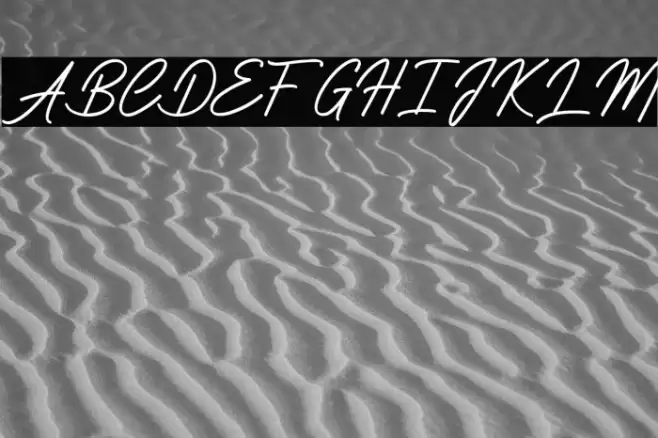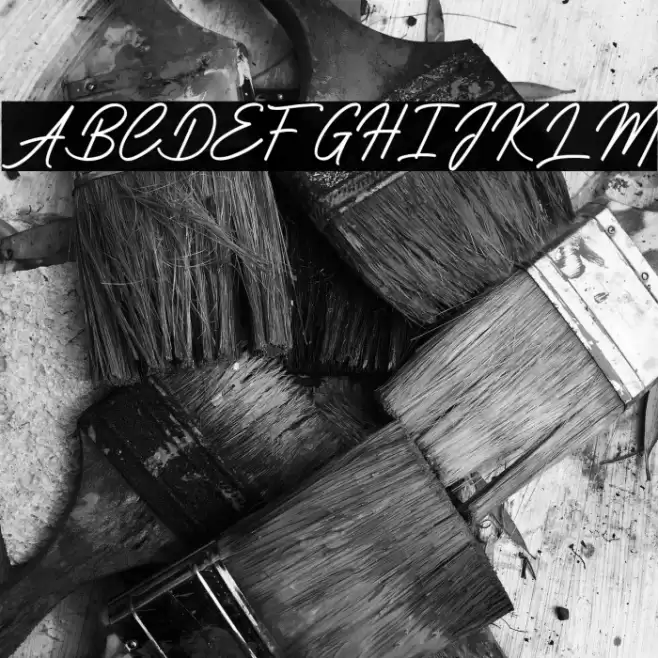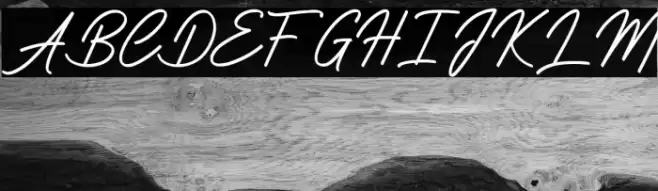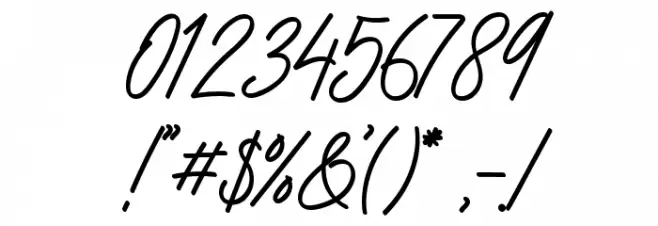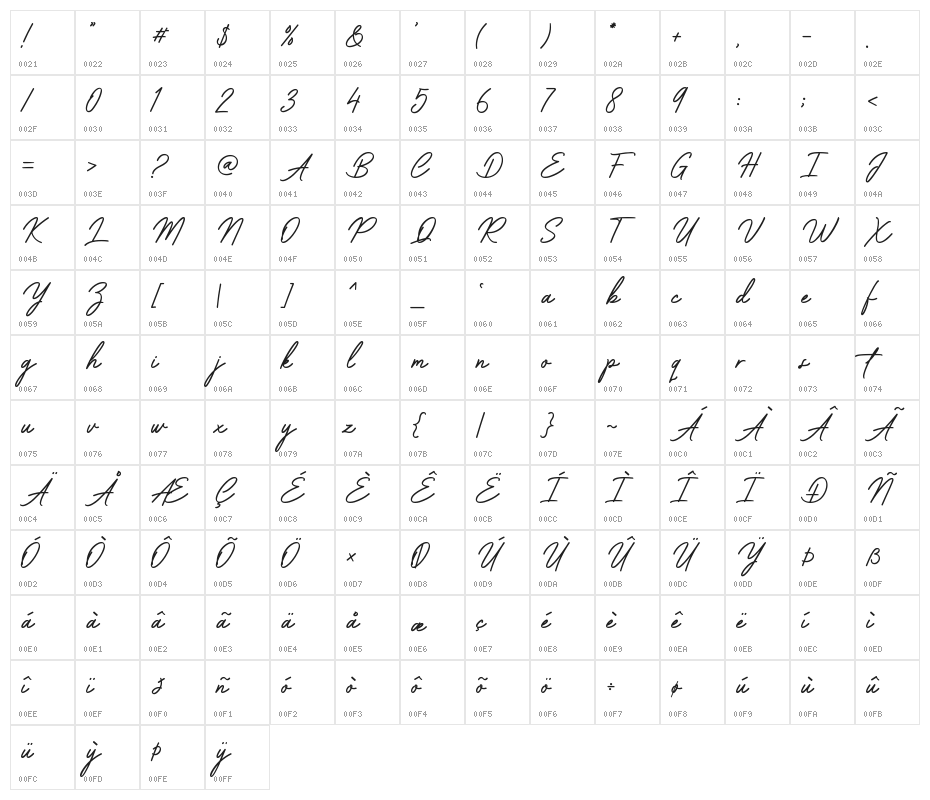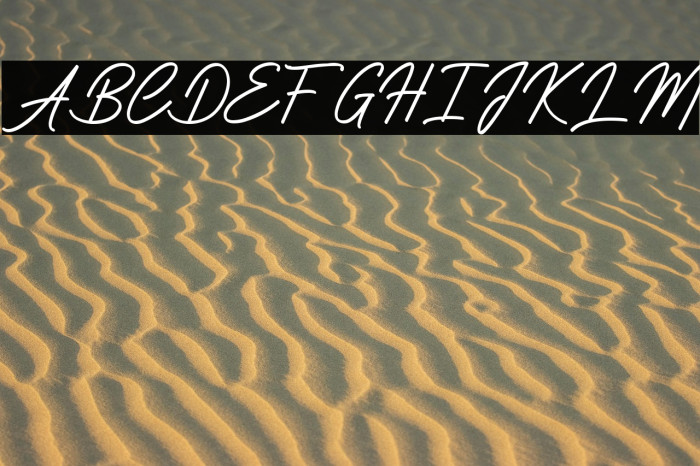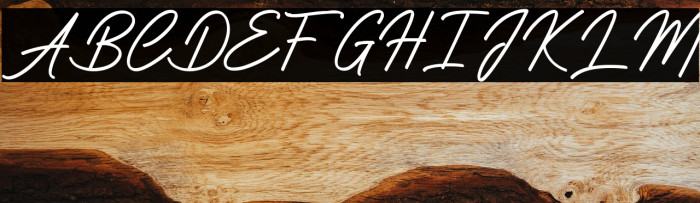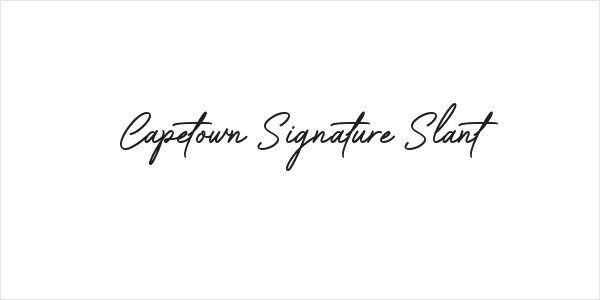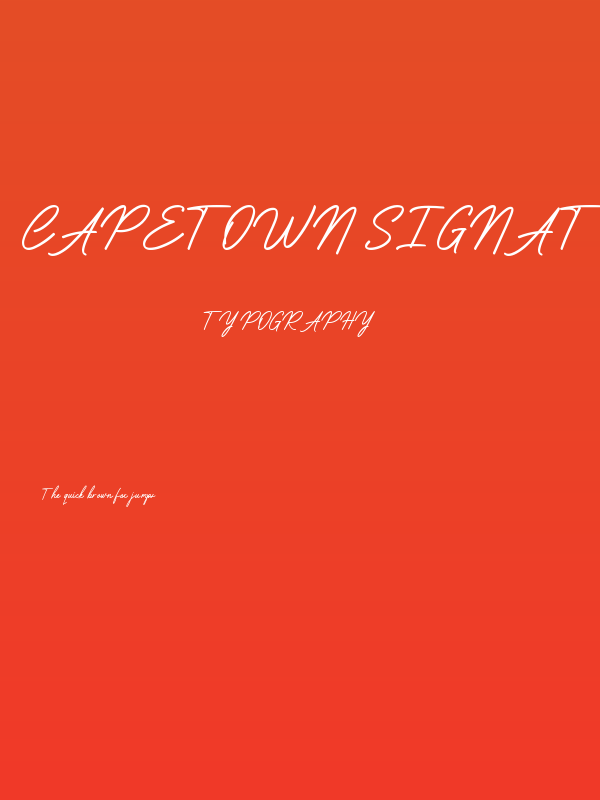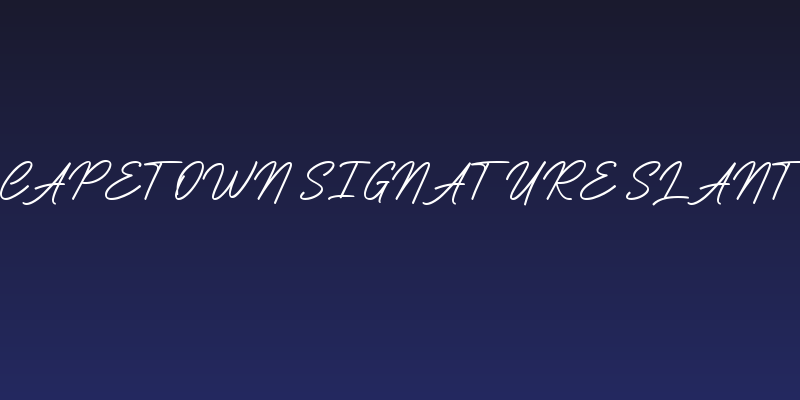
Capetown Signature Slant Font
Capetown Signature Slant Description
This font exudes a sophisticated and elegant charm with its flowing, cursive style. The letters are gracefully slanted, giving a sense of movement and fluidity. Each character is meticulously crafted with smooth curves and delicate strokes, embodying a handwritten aesthetic. The uppercase letters are bold and prominent, while the lowercase letters maintain a consistent flow, enhancing readability. The numbers and special characters are designed to complement the overall style, maintaining the same elegant and fluid characteristics. This font is perfect for adding a personal touch to any project, evoking a sense of elegance and refinement.
A sophisticated, slanted cursive font with elegant, flowing strokes from Uncategorized fonts.
- Font: Capetown Signature Slant
- Proposed Projects: Ideal for wedding invitations, personal branding, elegant logos, and upscale packaging.
- Overall Style: Elegant, Handwritten
- Use Case: Logos, Invitations, Personal Branding